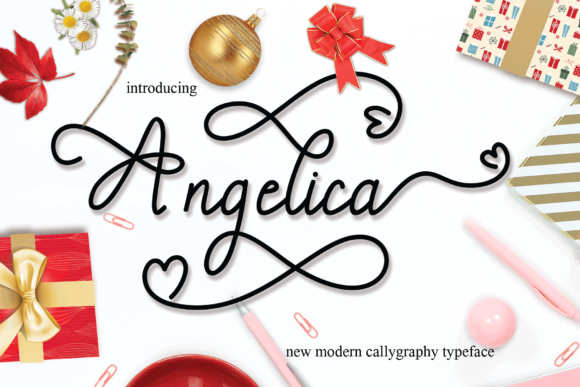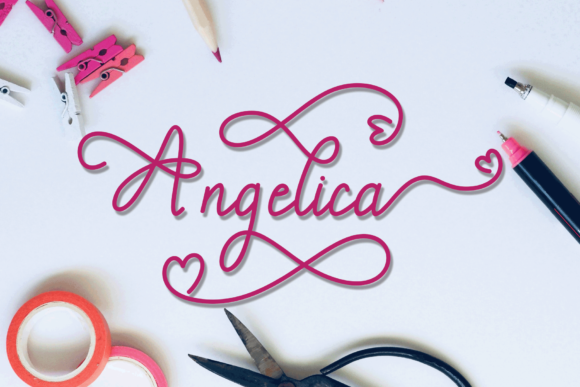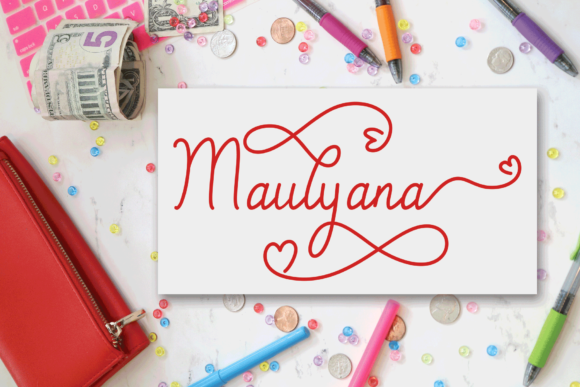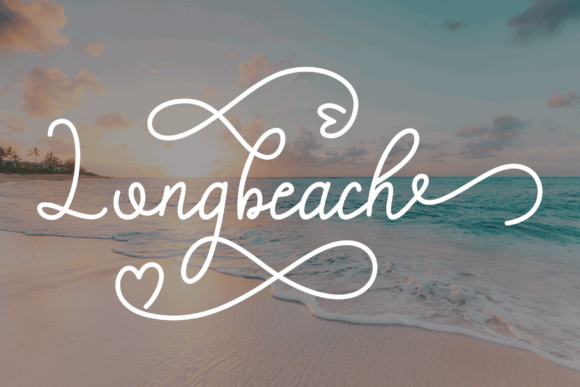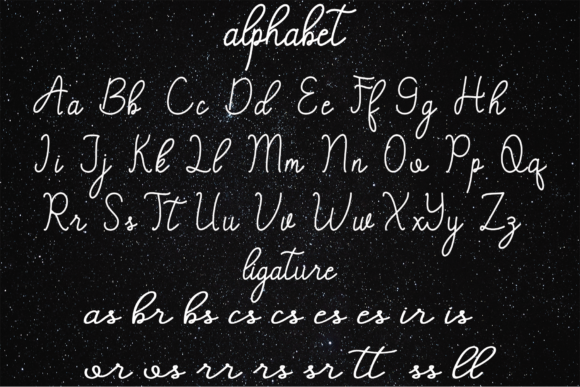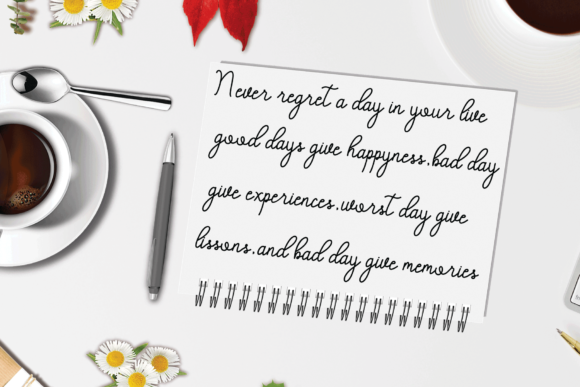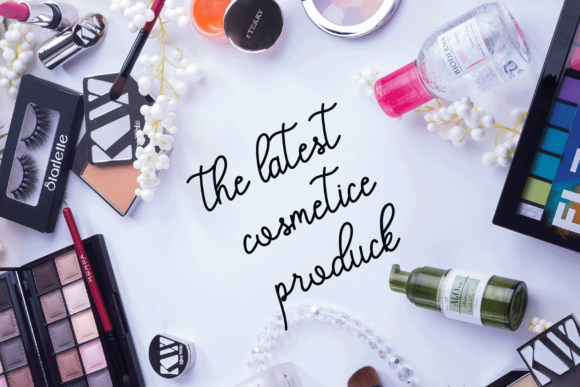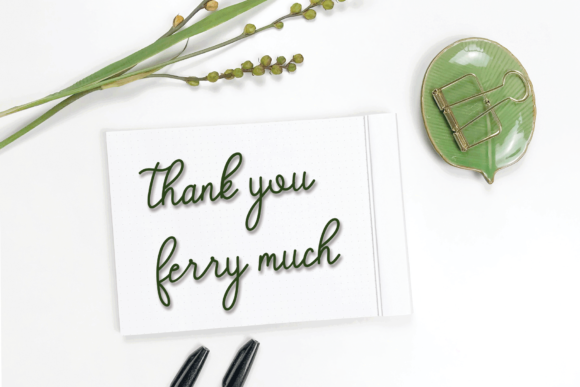
Angelica Font
About Angelica Font
Chintya is a gorgeous and fancy calligraphy font. It has an elegant and modern feel and can be used for logos, branding, invitations, stationery, wedding designs, social media posts, and much more.